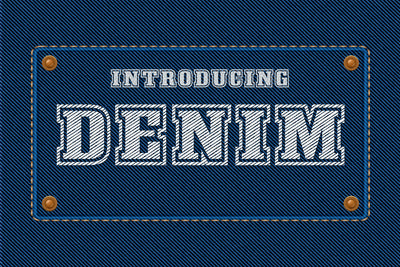
Denim Fonts
Denim Fonts are fonts designed to give the feel of denim. Look fun and cool perfect for cool projects, blog posts, logos, branding, ads, invitations, greeting cards, planners, photo albums, decorations, and much more. This font will be a wonderful asset to your fonts library as it has the potential to enhance any creation. Add it to any of your designs and enjoy the results!